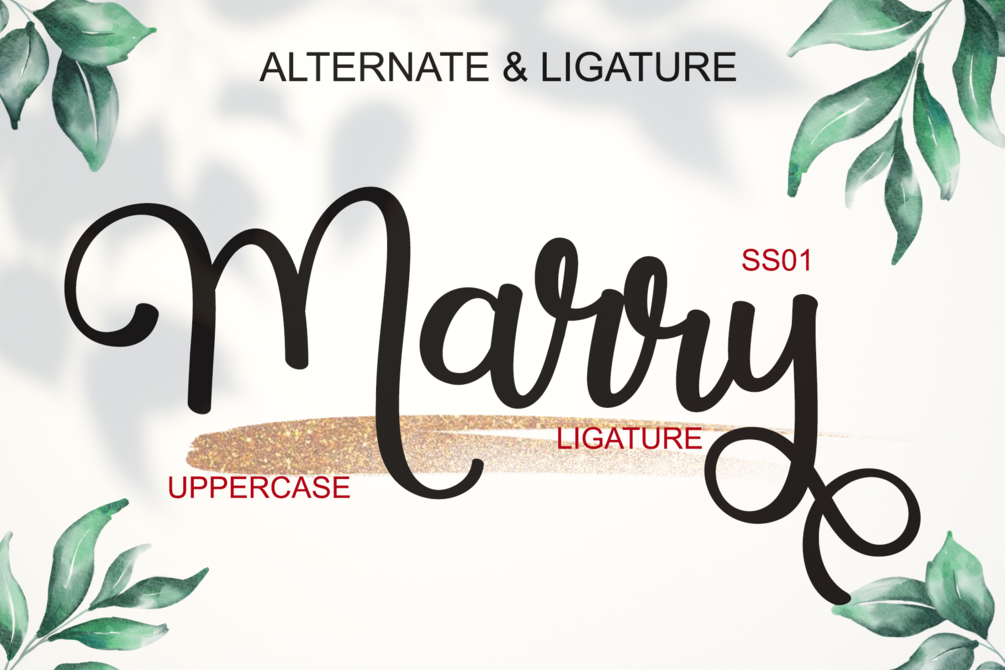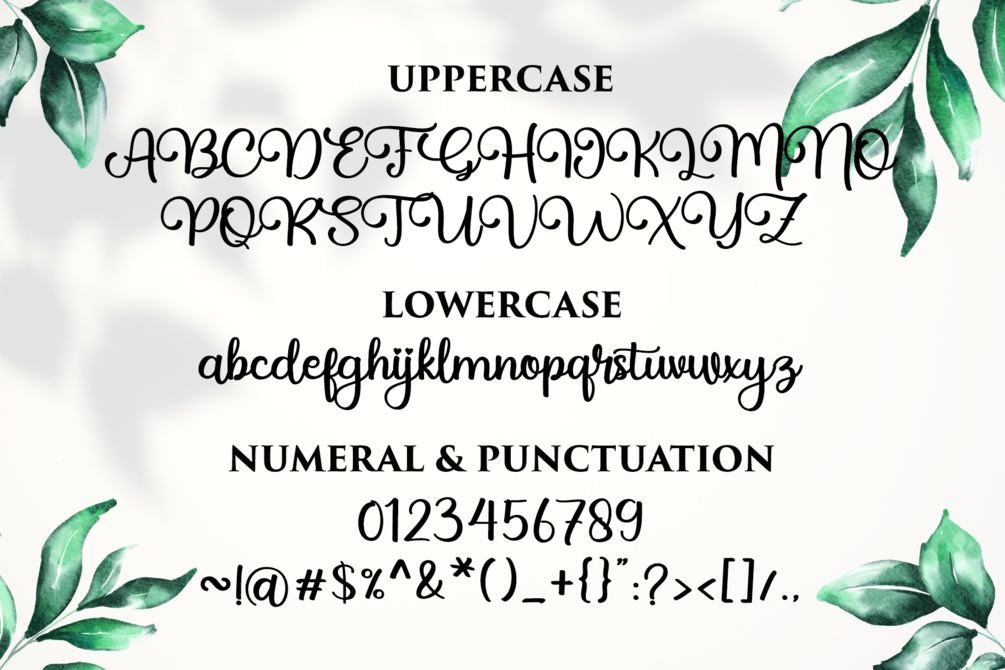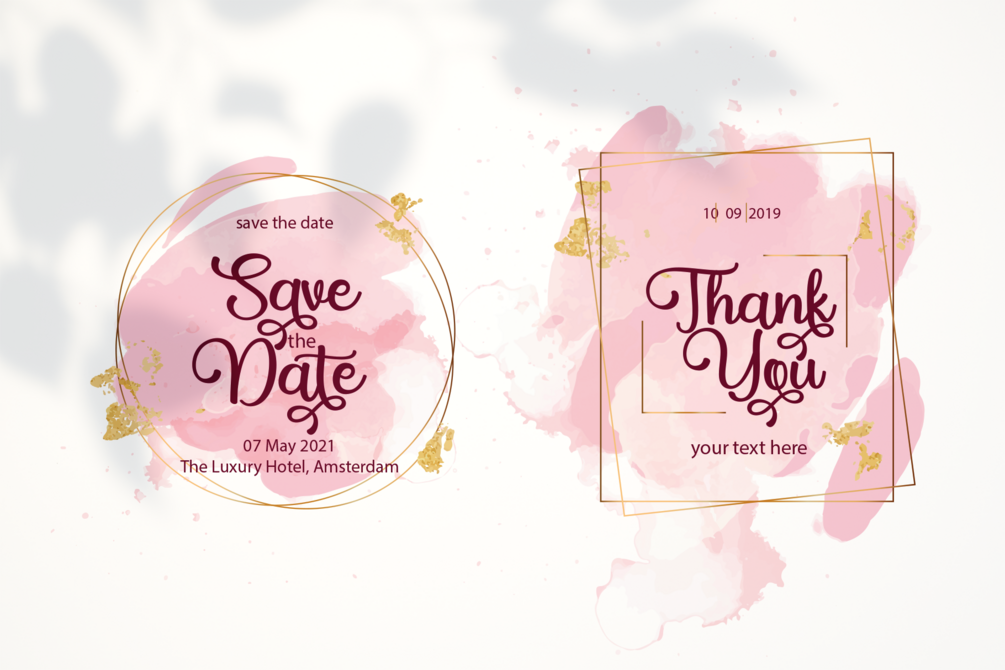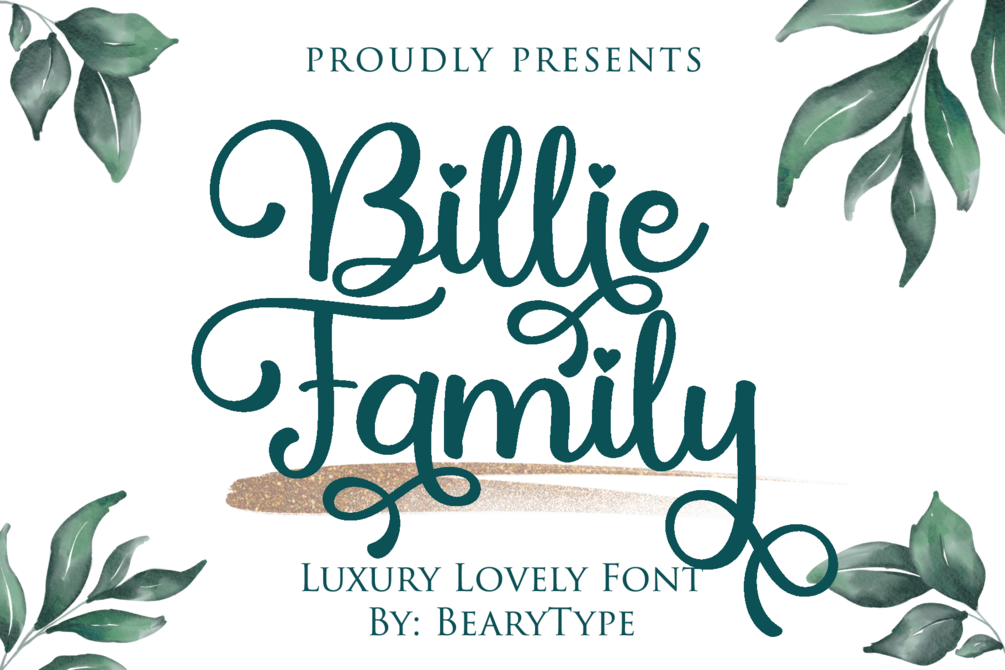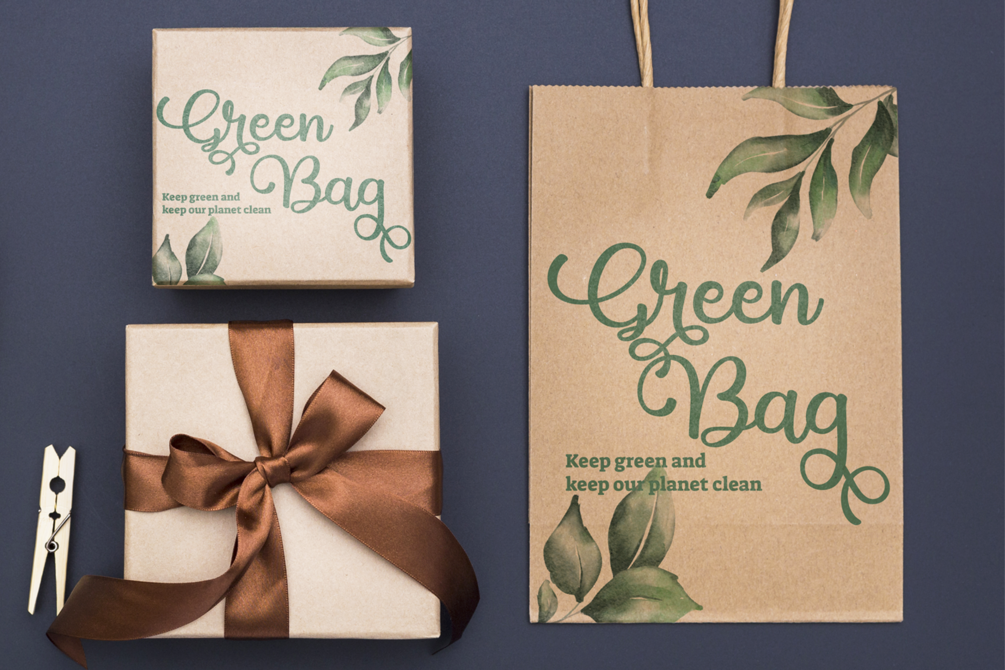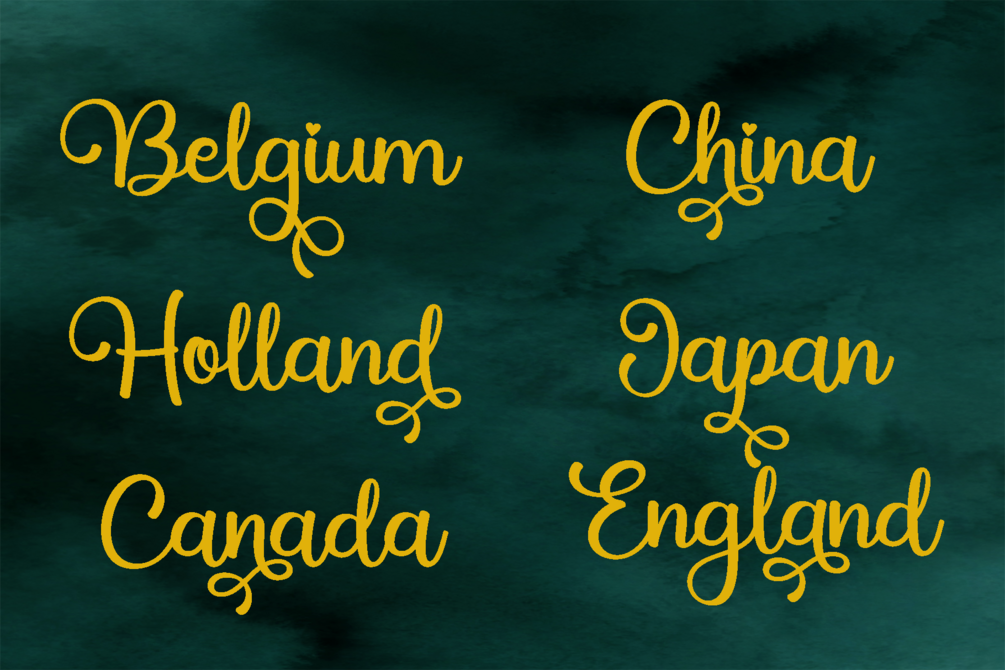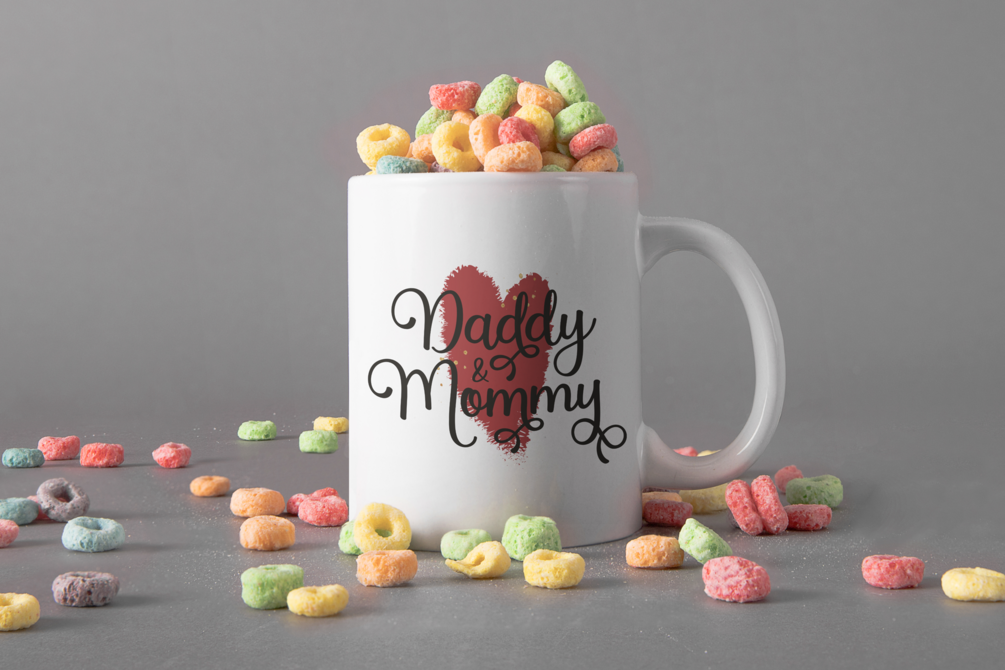
Billie Family
Billie Family is an amazing hand lettering script font that looks natural, attractive, and beautifully crafted. Every single letter is carefully designed to make your text stand out with authentic handwritten charm. With 244 glyphs, including 26 alternate characters and over 60 extended Latin characters for multilingual support, this font is perfect for wedding invitations, love-themed designs, custom mugs, Christmas cards, posters, branding, greeting cards, and social media graphics.
• 26 Alternate Characters
• Ligatures
• Multilingual Support (60+ Latin-based languages)